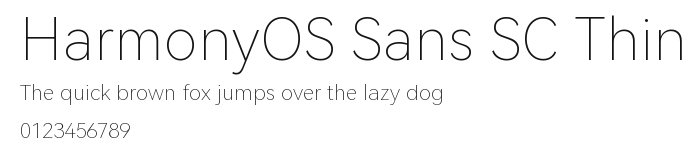
• Designer: Huawei Device Co., Ltd & Hanyi Fonts
About HarmonyOS Sans SC Thin.ttf
HarmonyOS Sans SC Thin.ttf is a modern, elegant sans-serif font designed for ultimate readability and visual harmony. Perfect for branding, headlines, web design, and print materials.